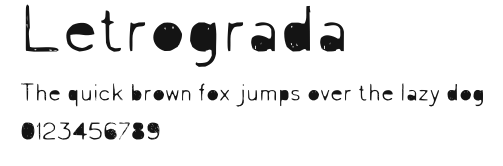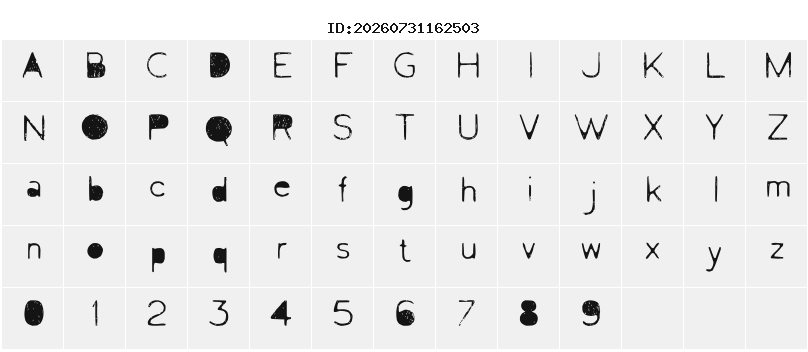
Letrograda Preview
• Font Name: Letrograda
• Full Font Name: Letrograda
About Letrograda.ttf
Letrograda.ttf is a modern, elegant sans-serif font designed for ultimate readability and visual harmony. Perfect for branding, headlines, web design, and print materials.